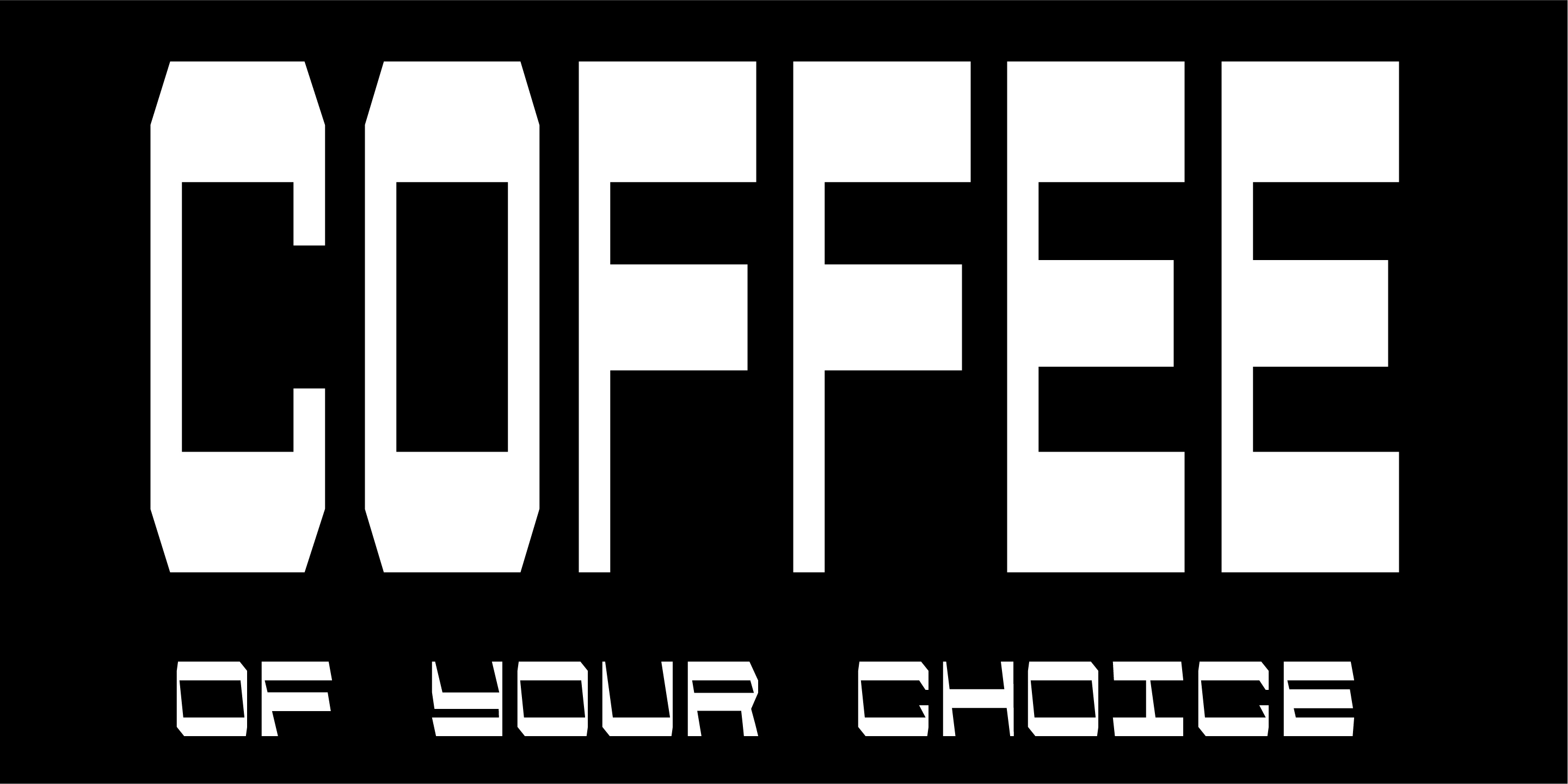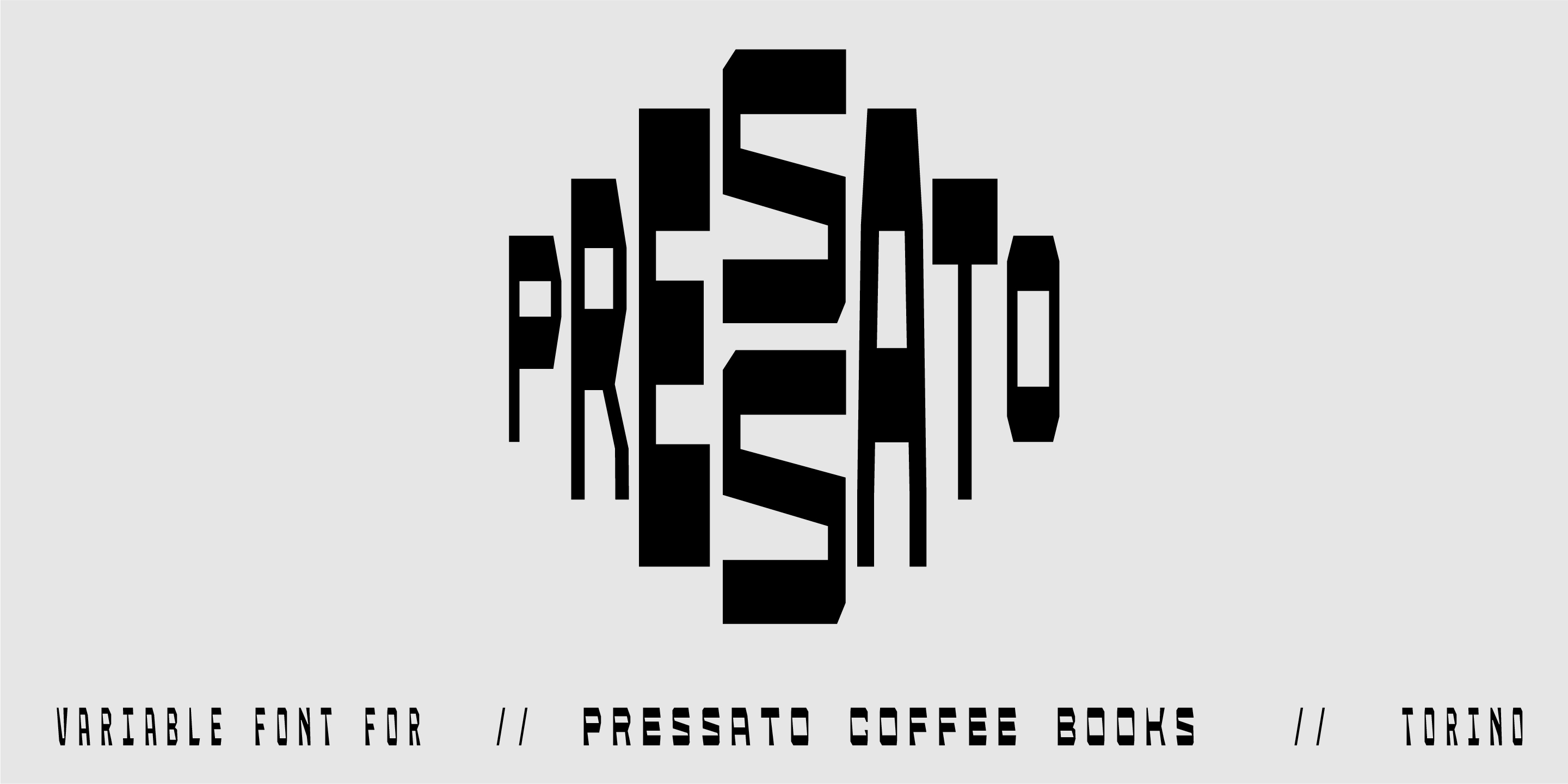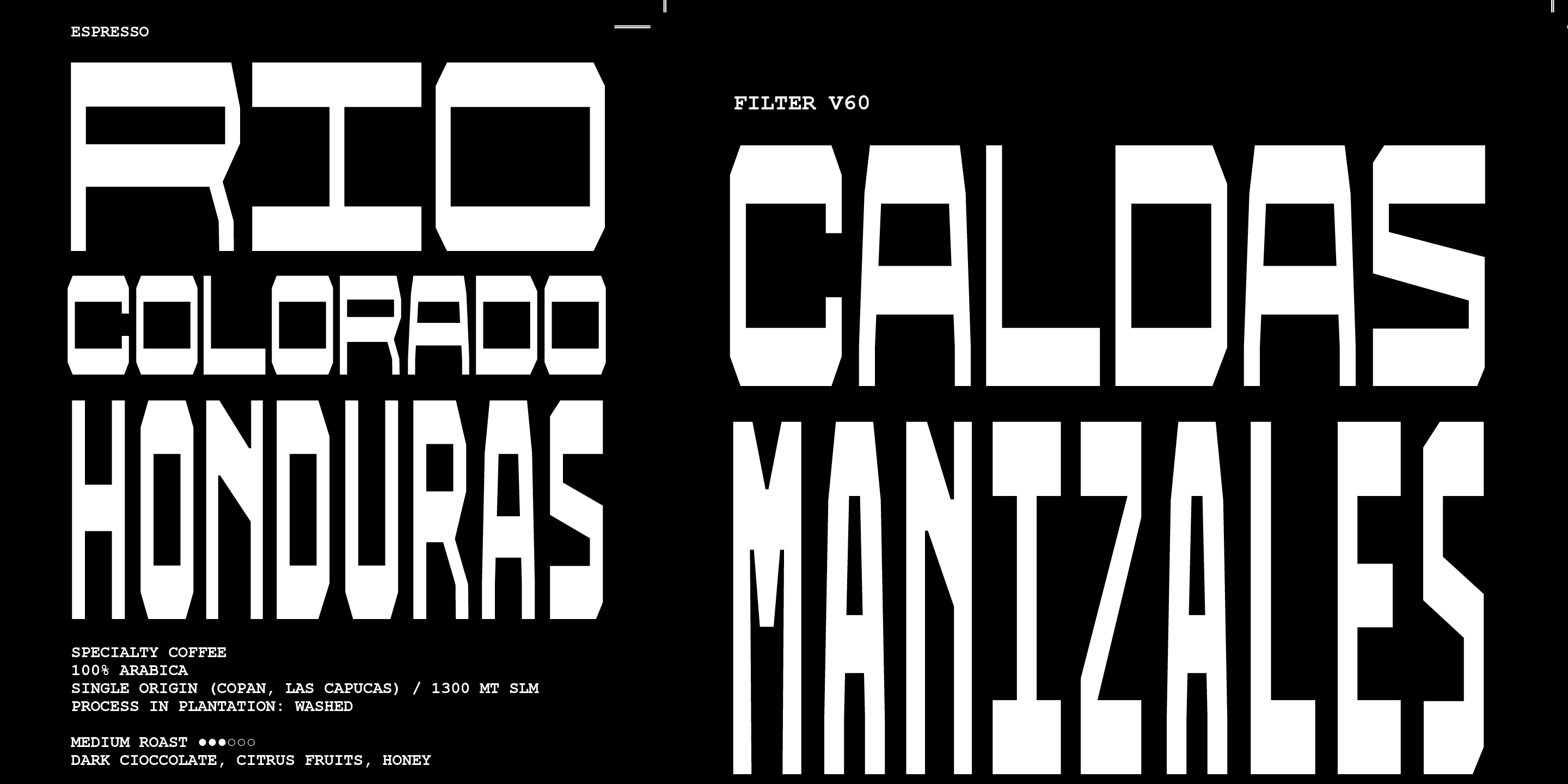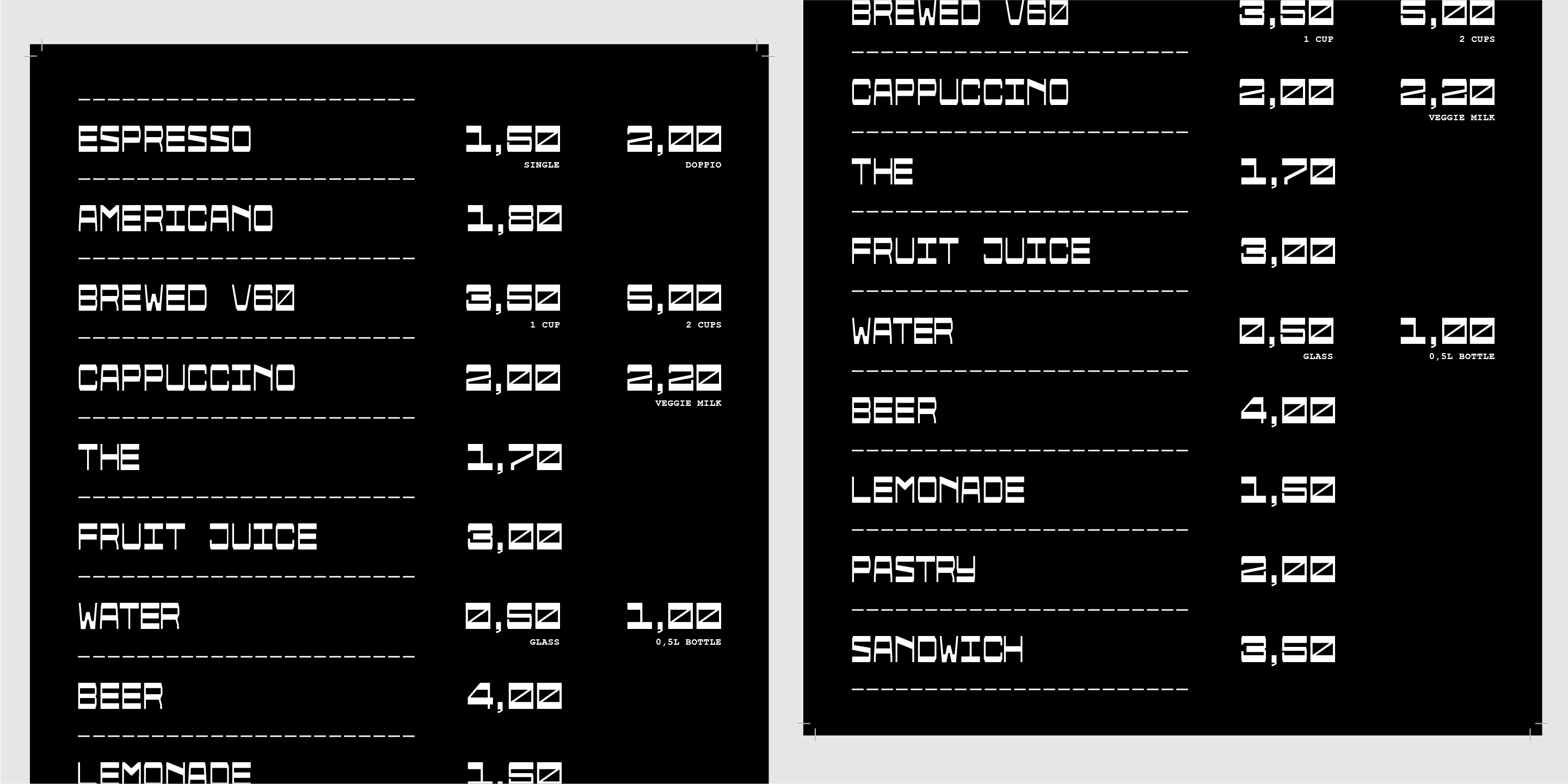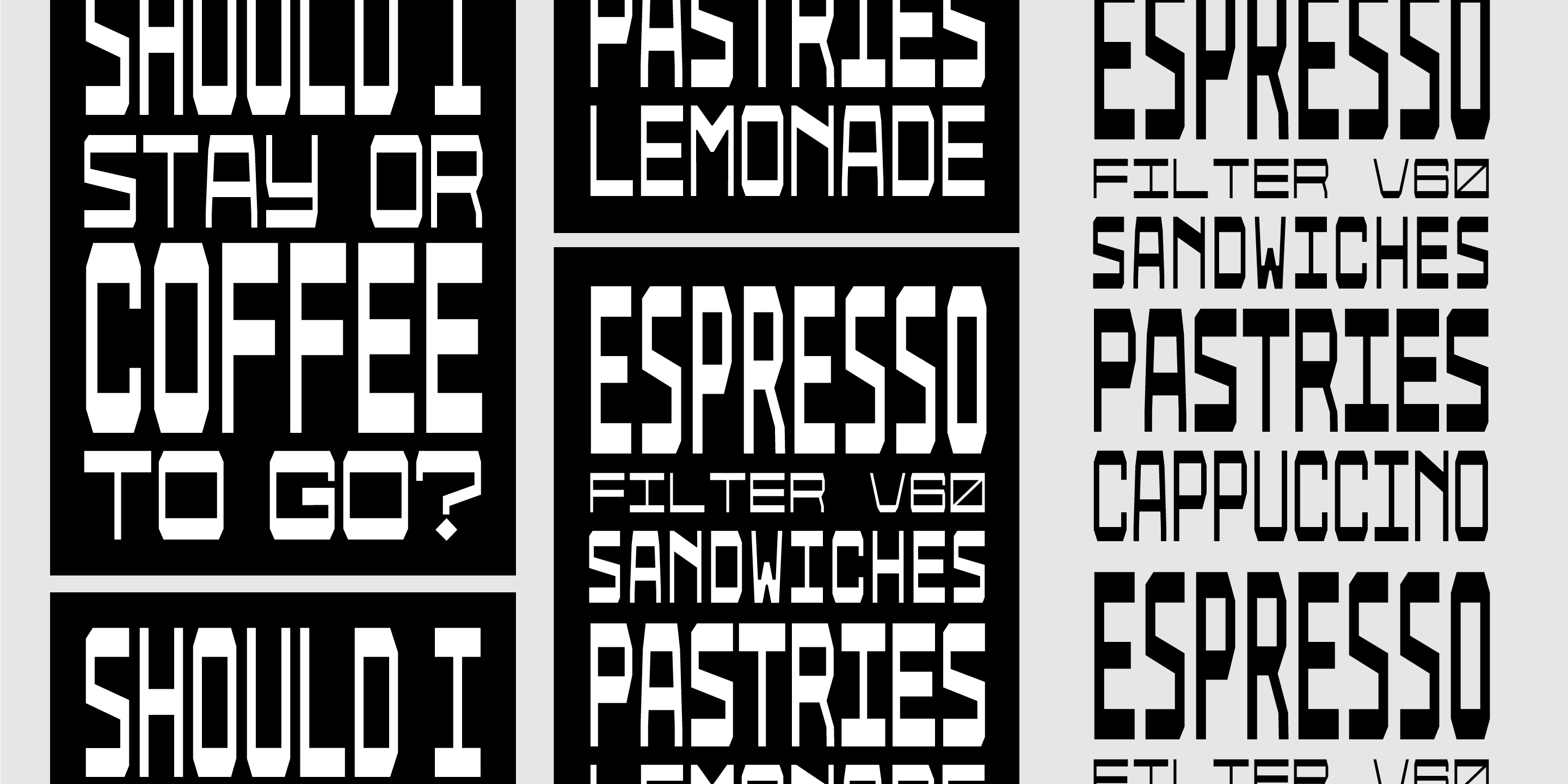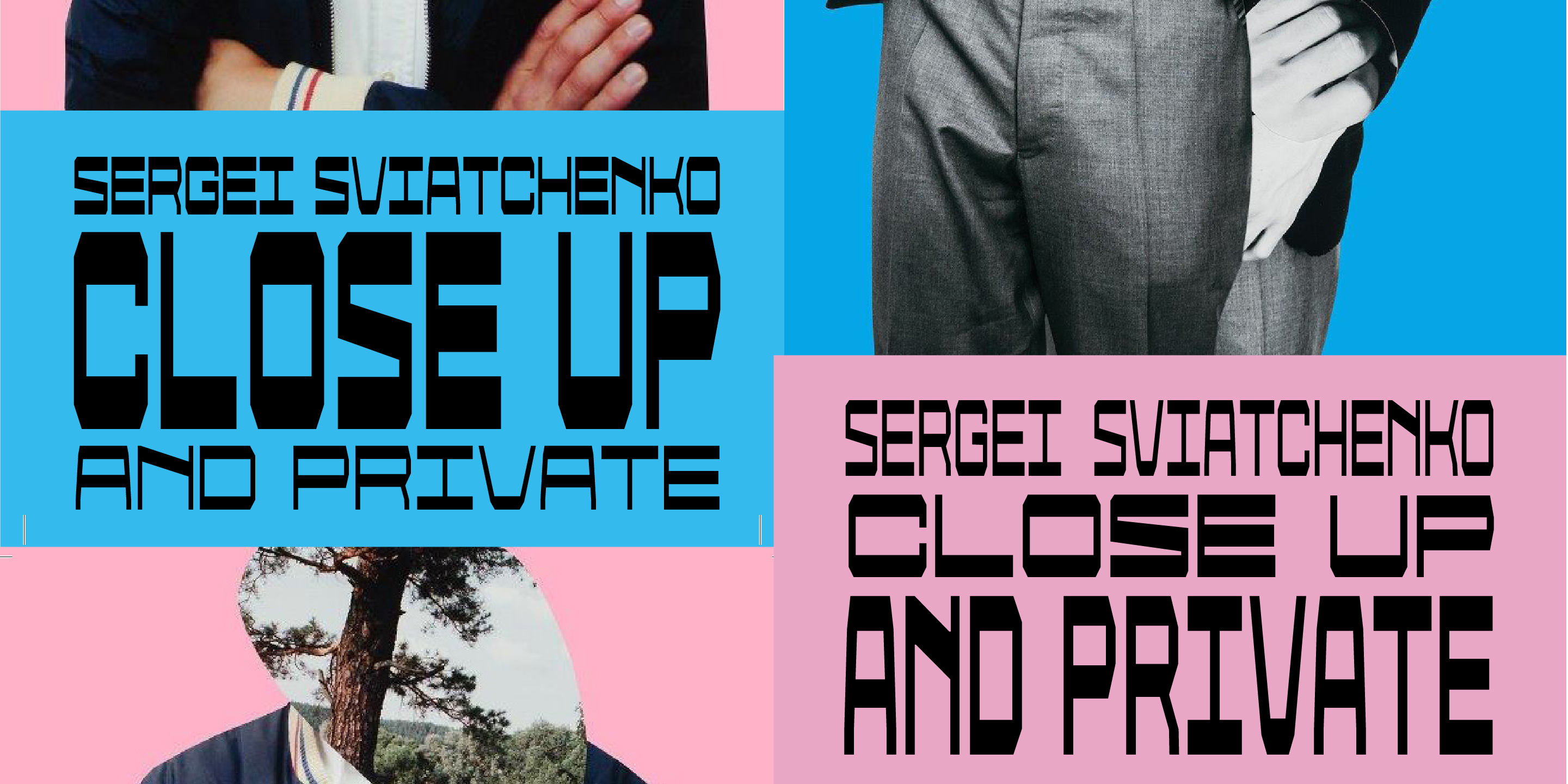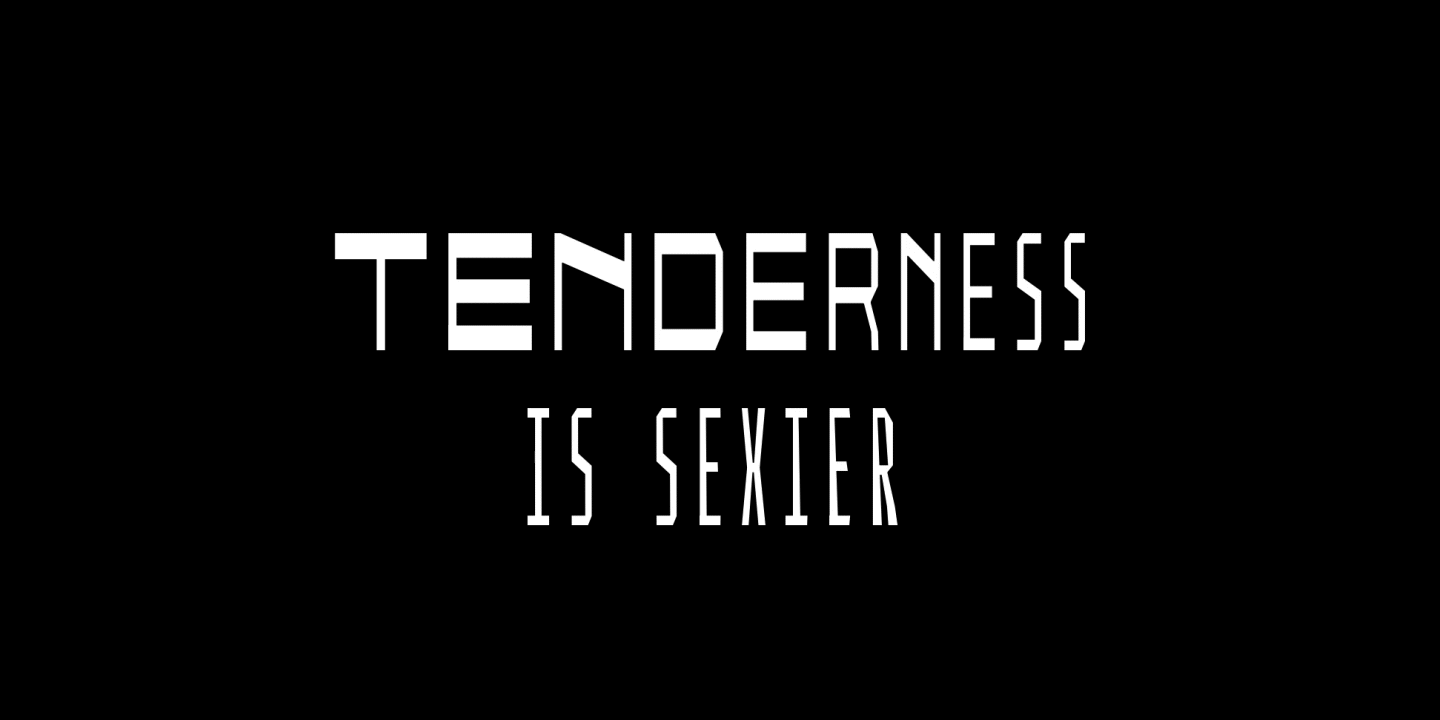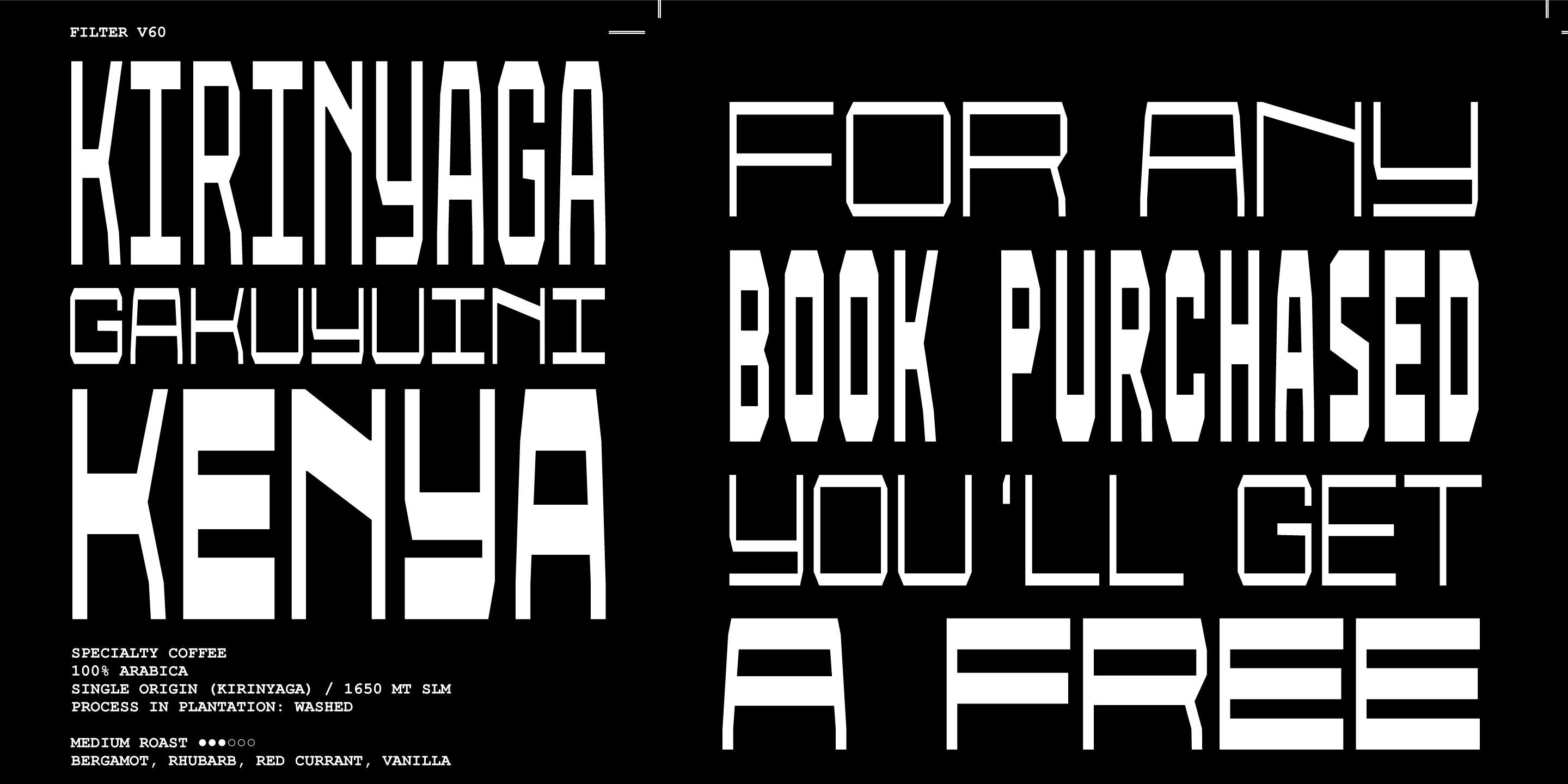
Pressato Collection
Pressato
Pressato Variable
Variable Font for a Coffee and Book store in Torino
Pressato
Designed by Resistenza Type Foundry
Pressato Font is a dynamic typeface created with Pressato Coffee Bookshop in Torino—a destination for exceptional coffee and curated books. This uppercase, Latin-only font features three axes (weight, width, and slant) offering 12 distinct fonts plus a variable option. Built on reverse contrast principles, it emphasizes sharp corners and straight edges with rectangular counters, evoking early tech and sci-fi design aesthetics. The three-axis system enables seamless transitions from bold headlines to refined display text. The slant axis creates particularly weird and funny effects, making it perfect for branding, editorial design, and projects requiring a distinctive futuristic aesthetic with playful character.